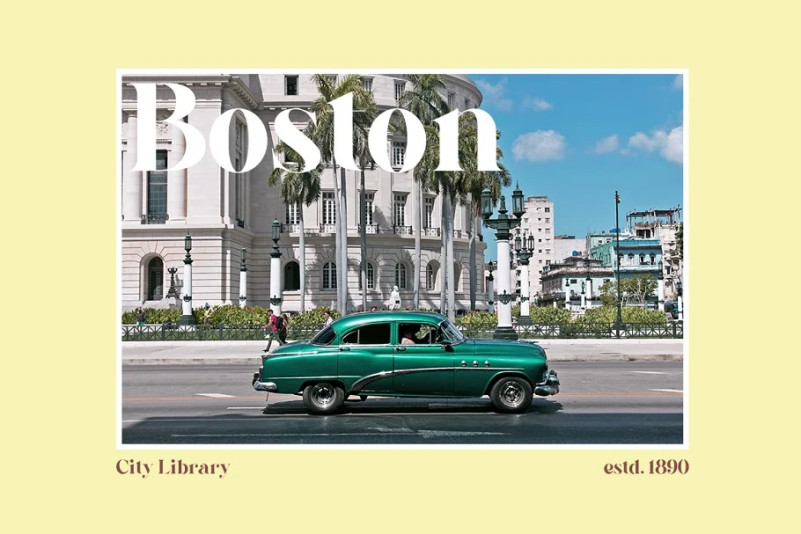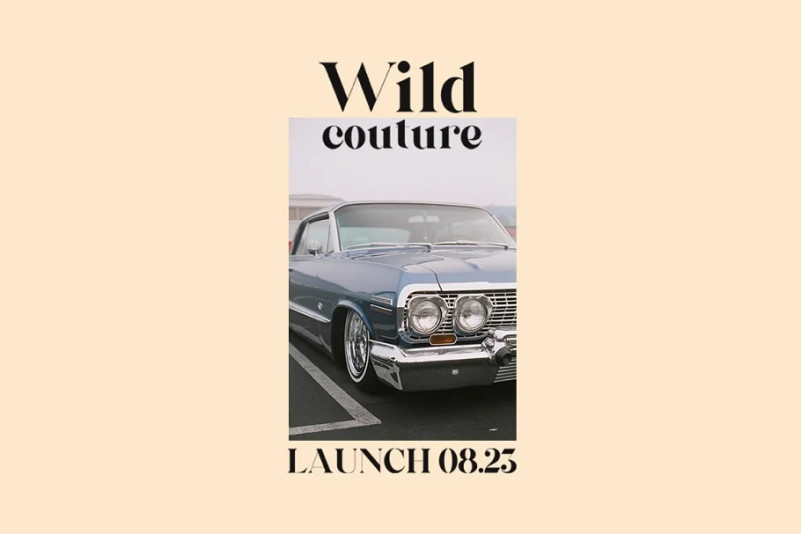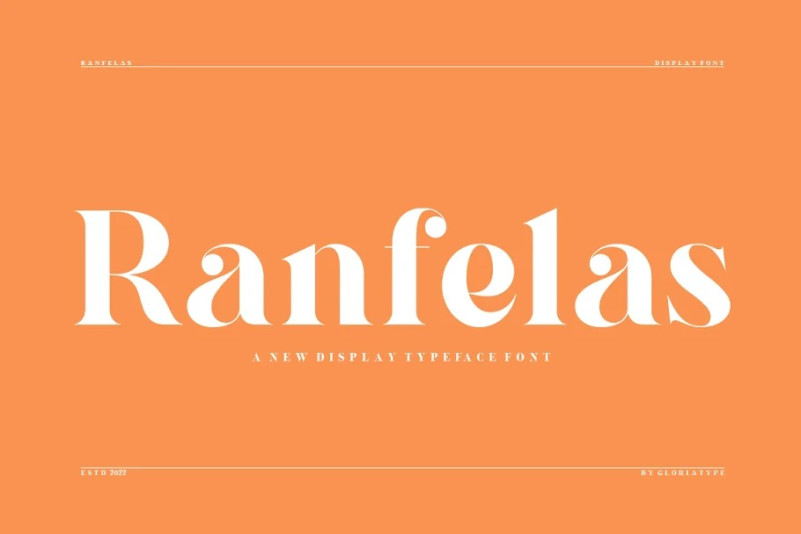
Ranfelas Font
Ranfelas Serif Font – a bold classic serif with more hand-illustrated alternatives, and preserved textures, for a unique, yet modern vintage feel.
Each letterform has a slightly grainy exterior that works beautifully to enhance the conventional and soft details of the Ranfelas. This versatile display typeface has enough character for logos and branding, as well as headlines, apparel, bridal and more. Keep it classic, or decorate it with ornate alternatives to uppercase and lowercase glyphs!